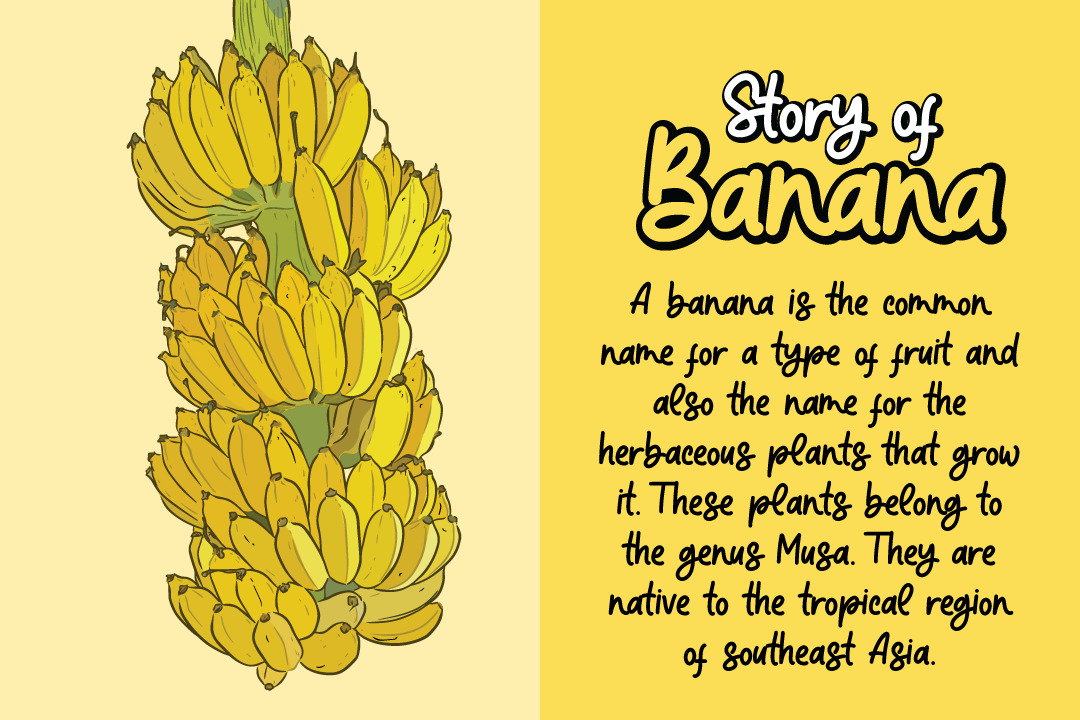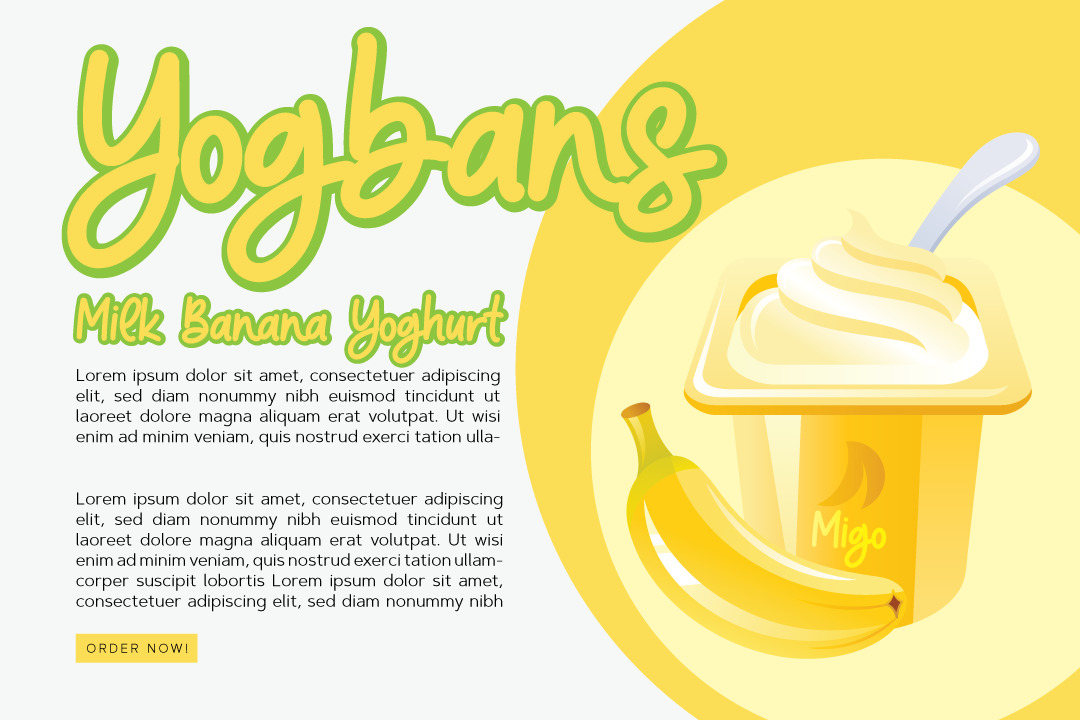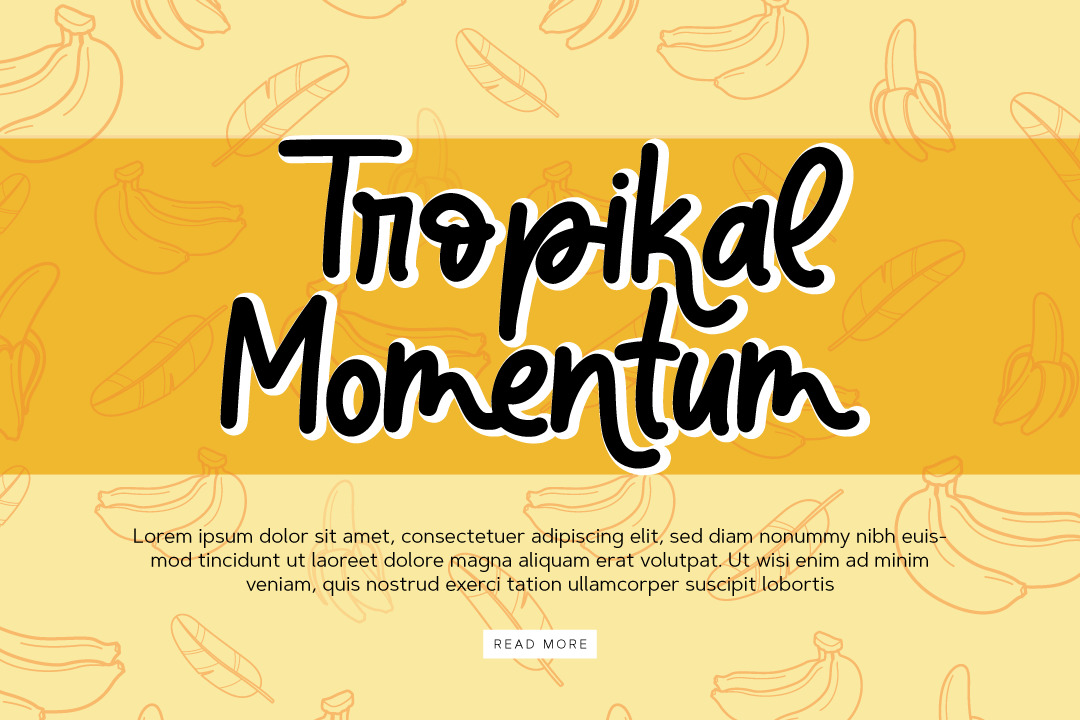
Banana Super Font
Introducing the new font Banana Super, simple, natural, and cute handwritten font. This font suitable for use in a variety of design fields, such as event advertisements, product promotions, book titles, activity titles, logos, adventure, and others.
- Number & punctuations
- Multilingual
- Ligatures and alternates character